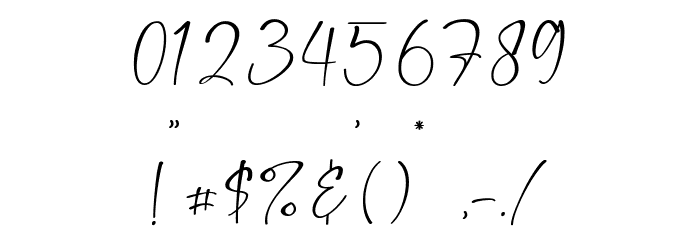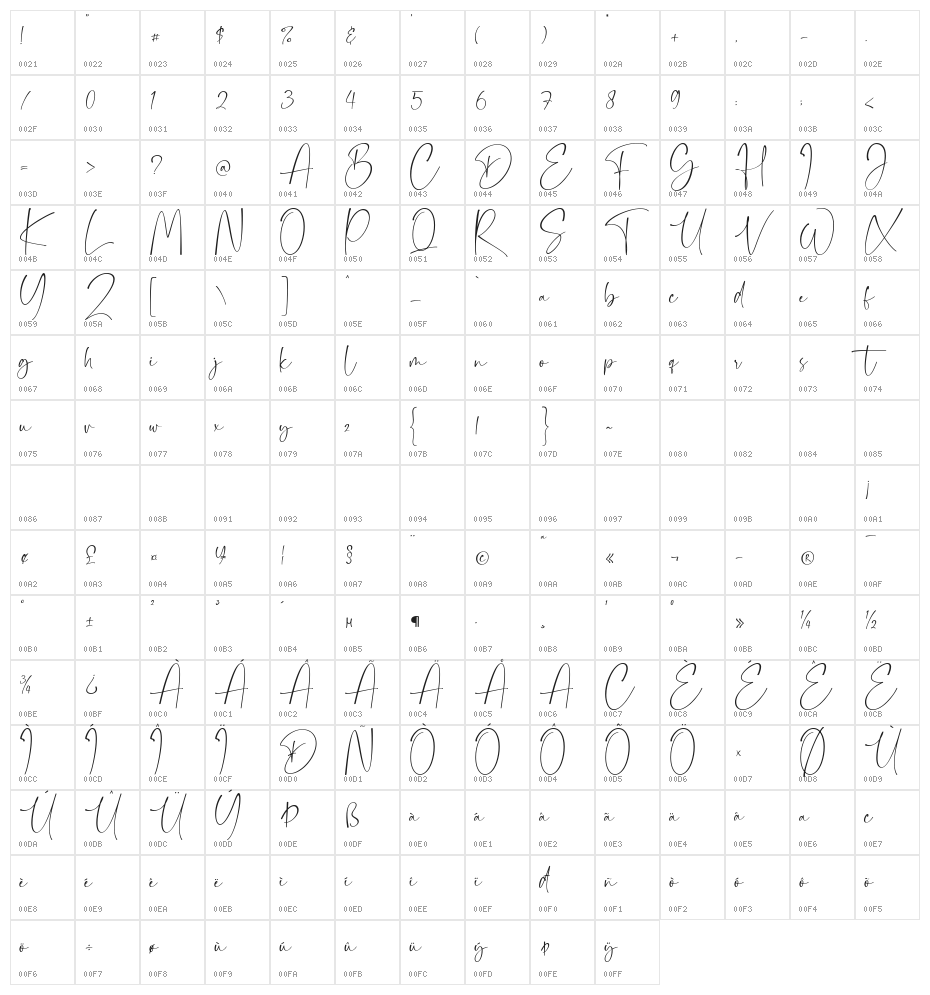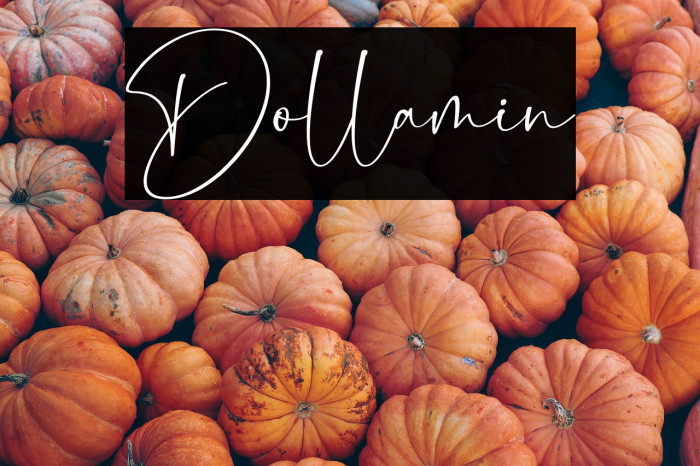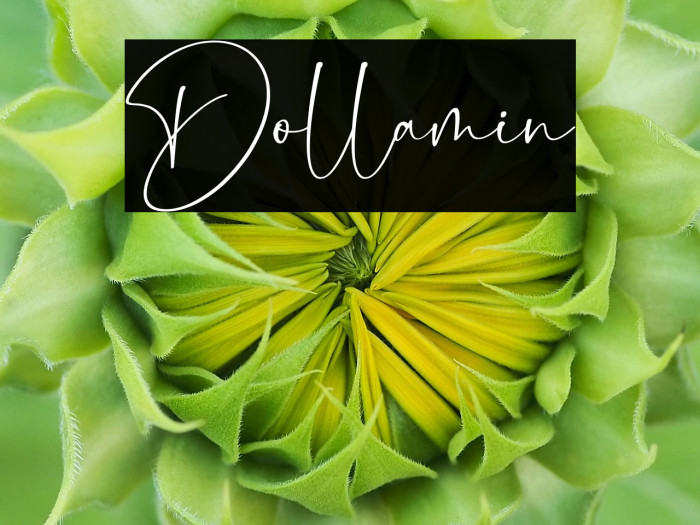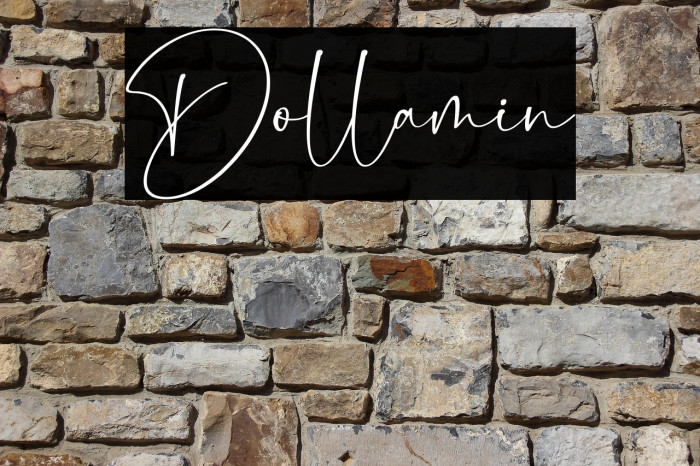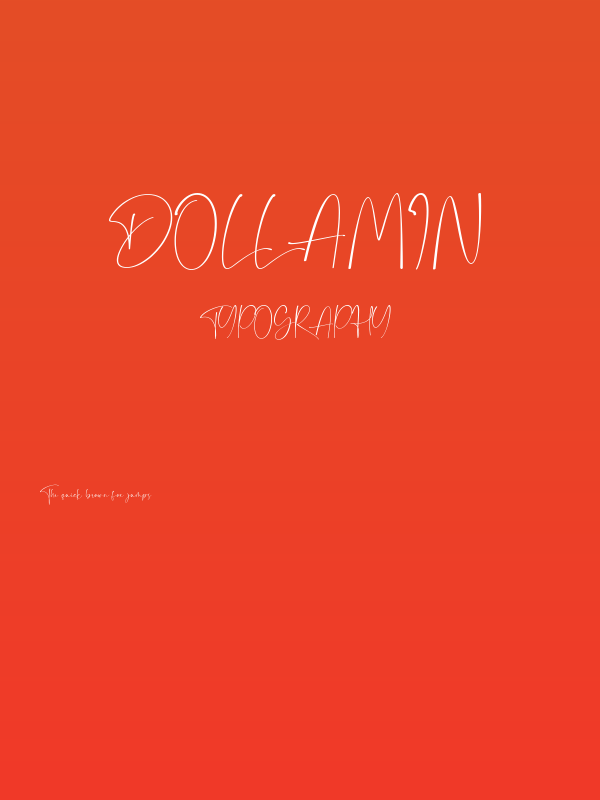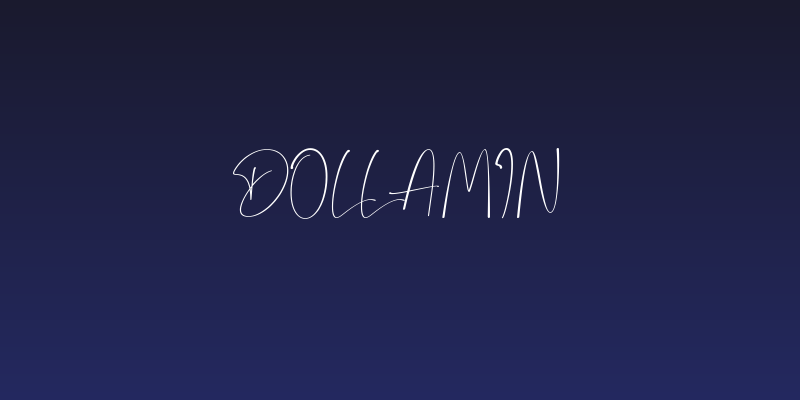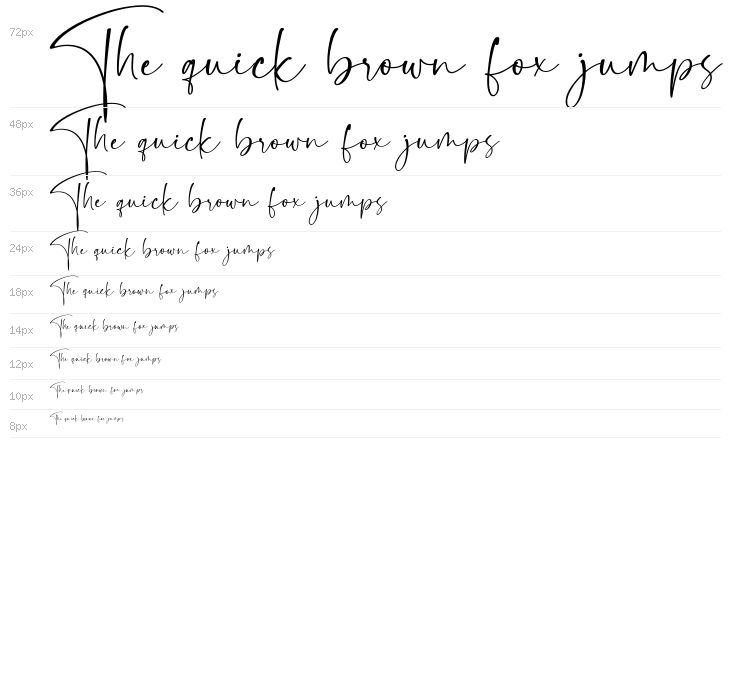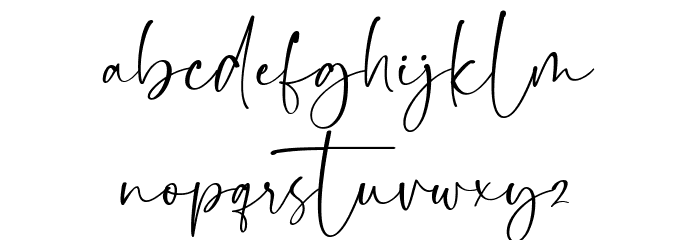
Dollamin Font
Dollamin Description
This font features a delicate and elegant script style, characterized by its flowing, cursive letterforms. The uppercase letters are tall and slender, with graceful loops and swashes that add a touch of sophistication. The lowercase letters maintain a consistent flow, with smooth connections between characters, creating a harmonious and fluid appearance. The numerals are stylish and complement the overall script aesthetic, while the special characters are thoughtfully designed to match the font's elegant style. The thin strokes and high contrast give it a refined and modern look, making it suitable for a variety of creative projects.
| Overall Style | Elegant, Modern |
| Proposed Projects | Ideal for wedding invitations, branding, greeting cards, and elegant packaging designs. |